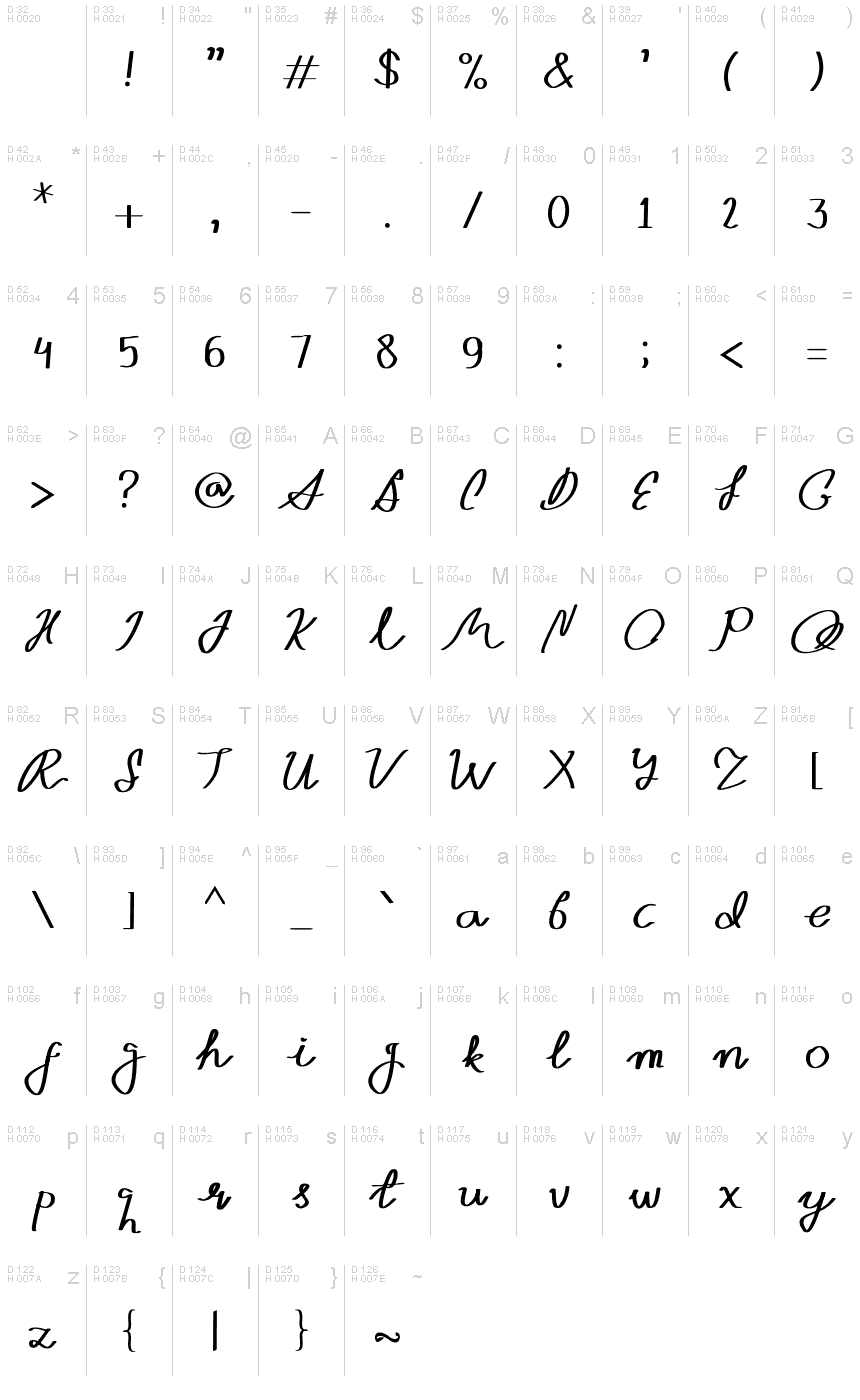
Quinswald Regular
Quinswald is cute handwritten font. ts the perfect font for wedding invitations, stationery, photography, social media posts, product packaging, greeting cards, and much more!
FEATURES
- Ligatures
- Stylistic Set
- Uppercase and Lowercase letters
- Numbering and Punctuations